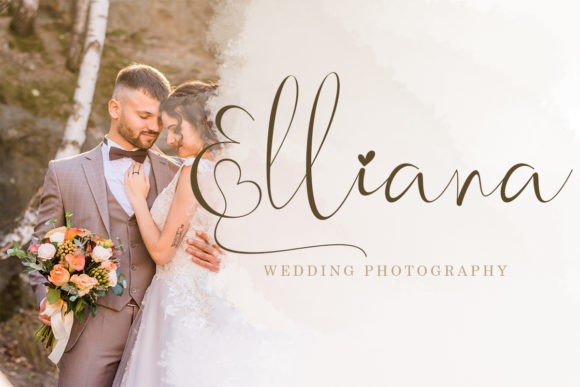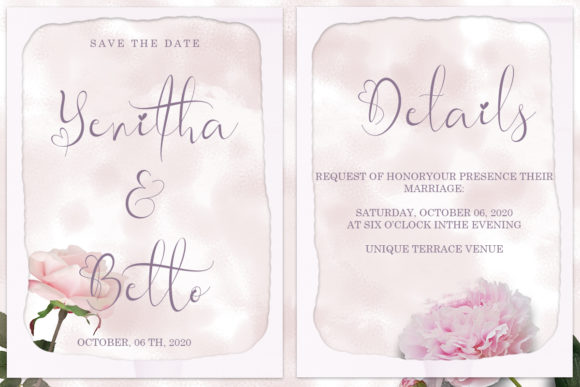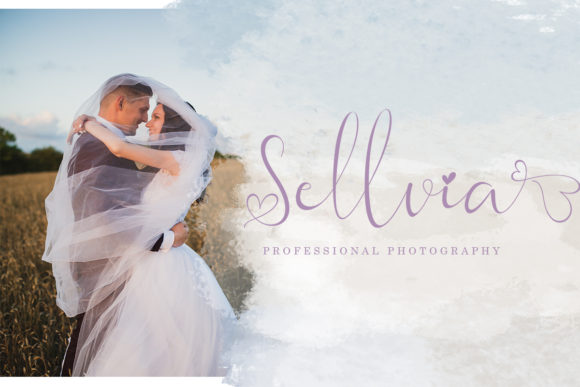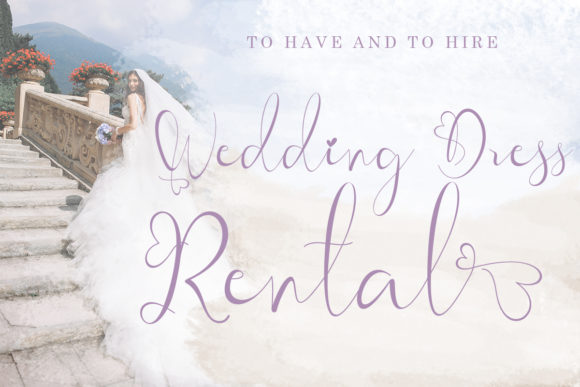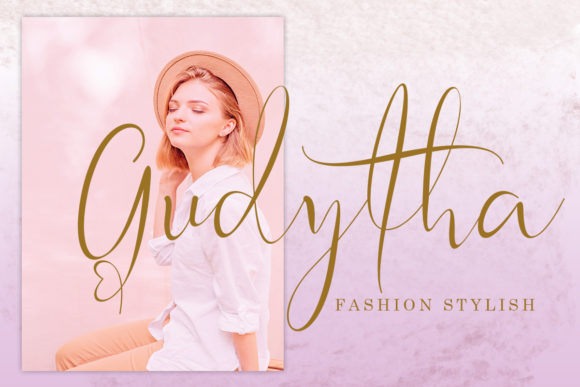
The Enchanting Adellia Font: A Designer’s Dream Come True
I’ll never forget the time I was working on a wedding invitation project, and my client asked for a font that was both elegant and charming. I scoured the internet, tried countless fonts, but nothing seemed quite right. That was until I stumbled upon Adellia Font. It’s been a game-changer ever since, and I’m excited to share its beauty with you.
A First Impression: What Makes Adellia Special
Adellia Font is a stunning handwritten font that exudes charm and sophistication. Its varying baseline, smooth lines, gorgeous glyphs, and stunning alternates make it perfect for a variety of design projects, including:
- Wedding invitations
- Thank you cards
- Quotes
- Greeting cards
- Logos
- Business cards
So, what makes Adellia Font so special? Here are a few things I love:
- ✨ Elegant and charming aesthetic
- ✅ Features a varying baseline for a natural, handwritten look
- ✅ Smooth lines and gorgeous glyphs
- ✅ Stunning alternates for added creativity
And, like any font, it’s not perfect. A few small quirks to keep in mind:
- ⚠️ Some users may find the font a bit too ornate for certain projects
- 🤔 May require some experimentation to get the perfect look
The Story Behind Adellia Font
While the true story behind Adellia Font remains a mystery, it’s easy to imagine a designer with a passion for handwriting and elegance creating this beautiful font. Perhaps they were inspired by vintage wedding invitations, elegant calligraphy, or the intricate details of antique manuscripts. Whatever the inspiration, Adellia Font is a testament to the power of typography to evoke emotions and create connections.
| Font Name | Adellia Font |
| Author | yogaletter6 |
| What is Adellia Font best used for? | Adellia Font is perfect for designs that require a handwritten touch, such as wedding invitations, thank you cards, quotes, greeting cards, logos, and business cards. |
| Is Adellia Font easy to read? | Adellia Font is designed to be elegant and charming, but it may not be the most readable font for body text. It’s best used for titles, headings, and short paragraphs. |